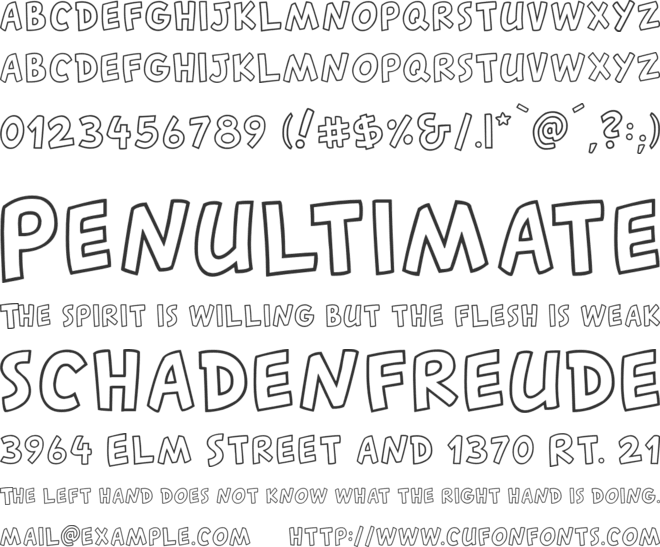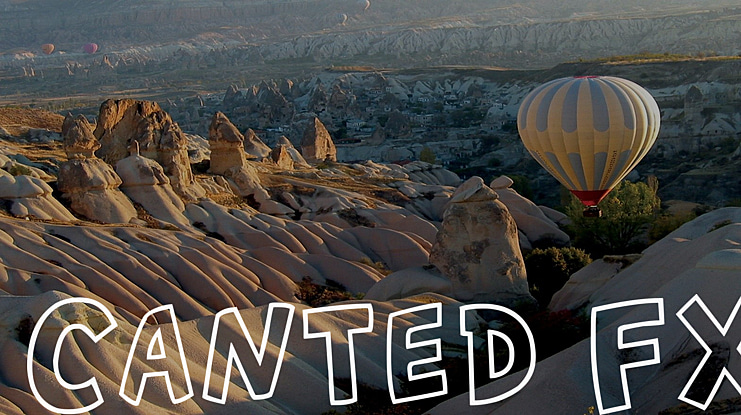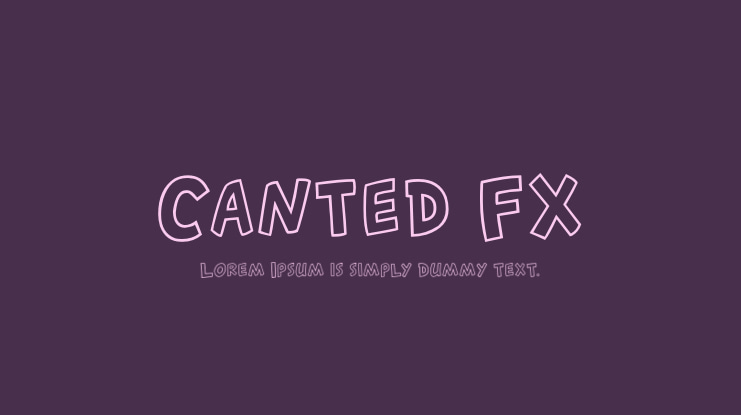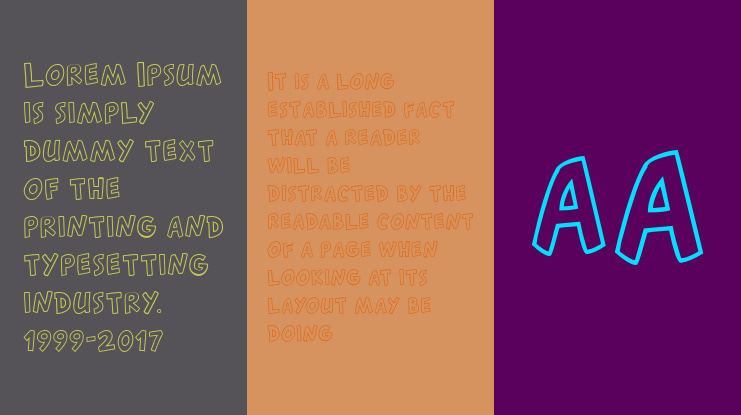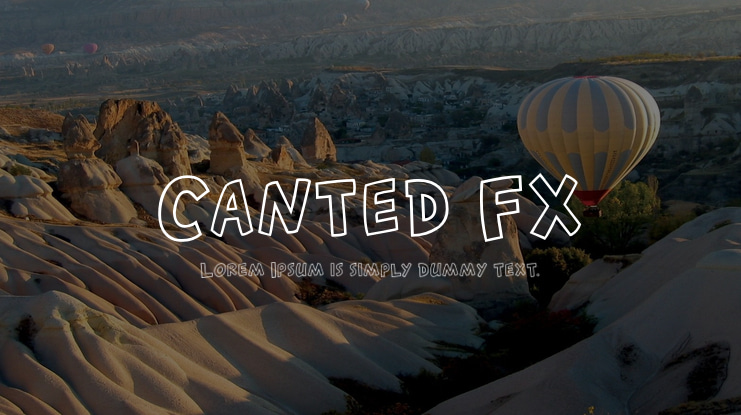
Canted FX Font Family
Nils Cordes
A layered comic font for sound effects and action. Combine regular and bold for some colorful Splash, Bang and Thwip. Sister font of Canted Comic.